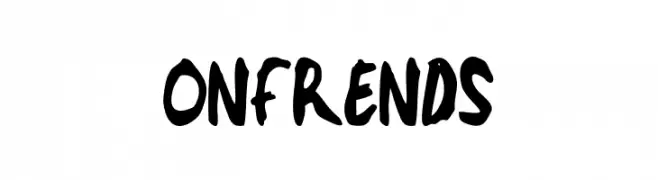
A futuristic, circuit-inspired font with geometric lines and dots.
A bold, flowing script font with elegant, interconnected characters.
A bold, cursive font with a flowing, elegant style.
A bold, handwritten-style font with a playful and artistic flair.
A graceful and elegant script font with flowing, cursive letterforms.
A bold, flame-inspired font with jagged outlines and dynamic energy.
A playful, bold font with a hand-drawn, cartoon-like style.
A playful, hand-drawn style font with rounded edges and consistent stroke width.
A dynamic and fluid script font with elegant, flowing letterforms and a modern calligraphic style.
A dynamic and elegant script font with flowing, cursive letterforms.